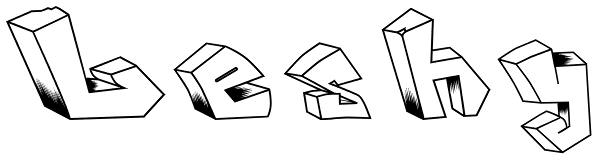
Leshy
An original volume decorative typeface that imitates broken stones. It was inspired by graffiti letterforms. Solid and inverted styles are available. Designed by Fedor Saveliev and Olga Ryabihina in 2003 and licensed by ParaType. For use in display...
Leshy Invert
Leshy